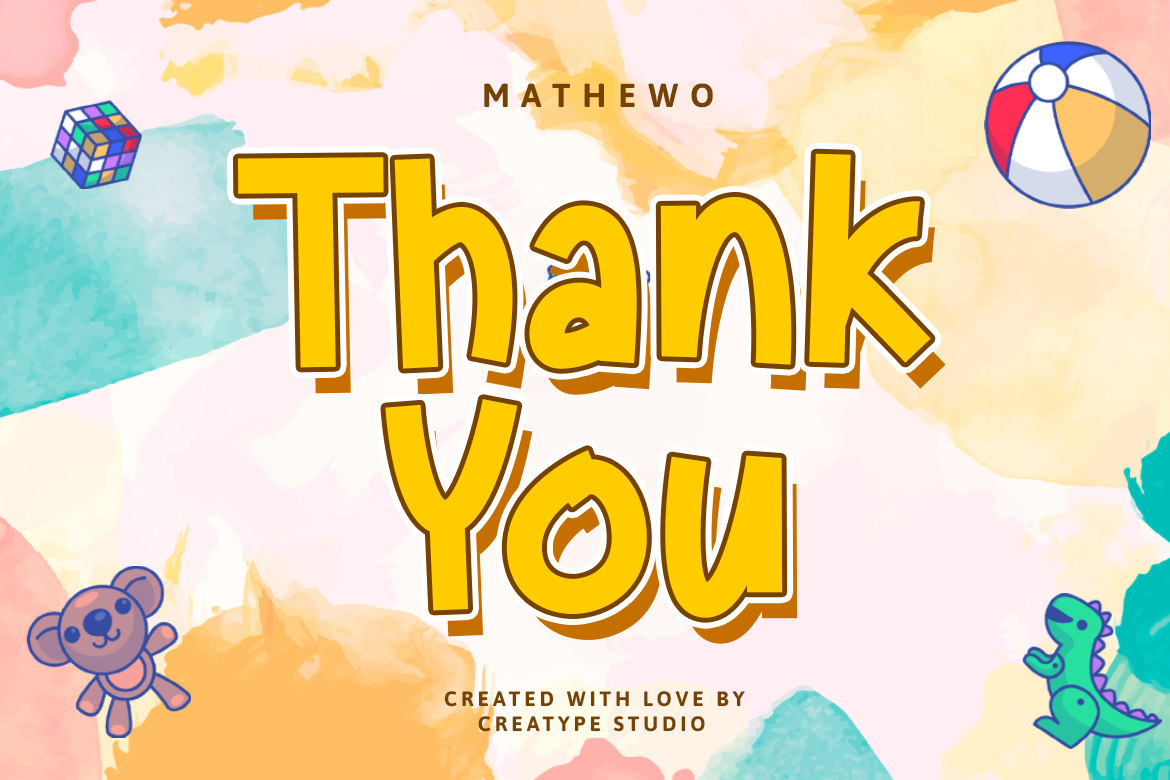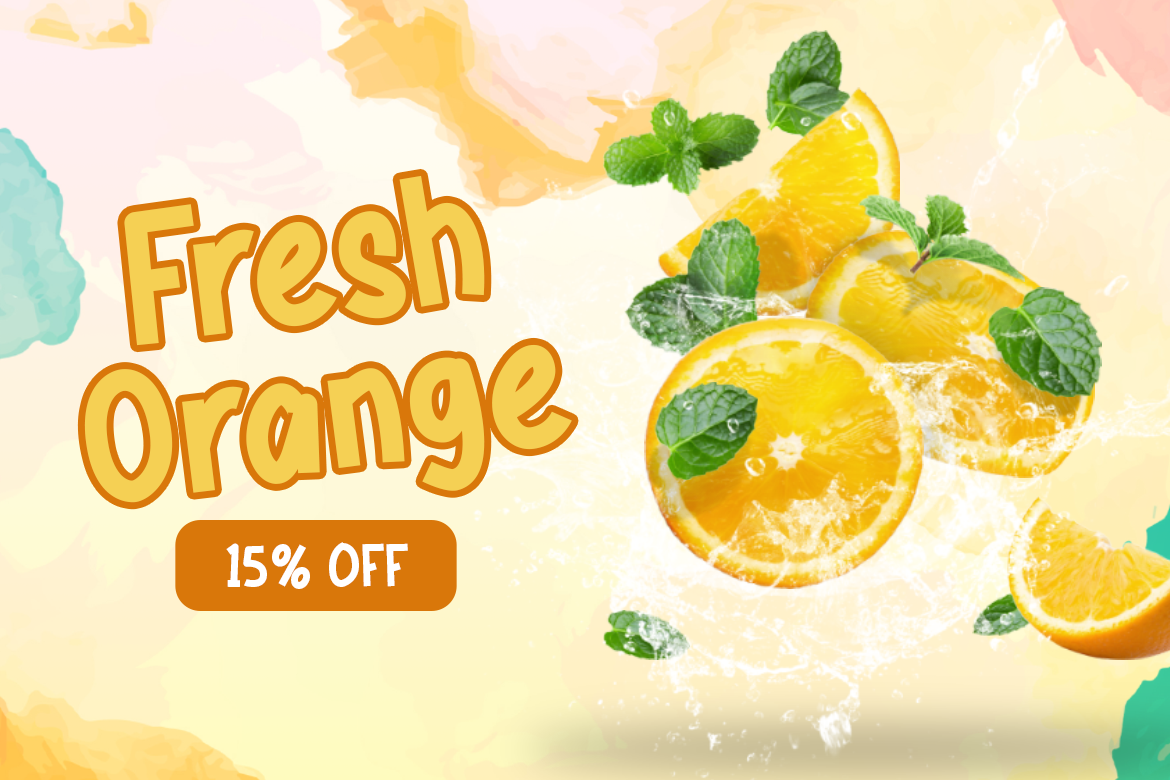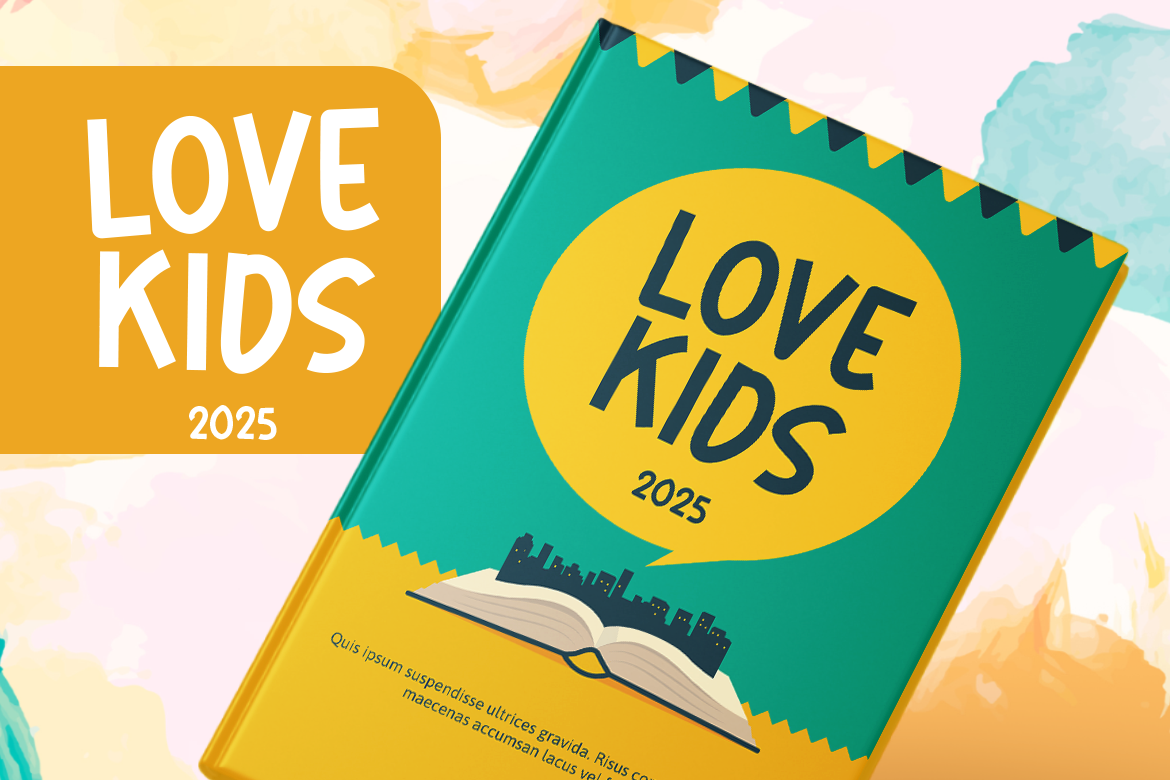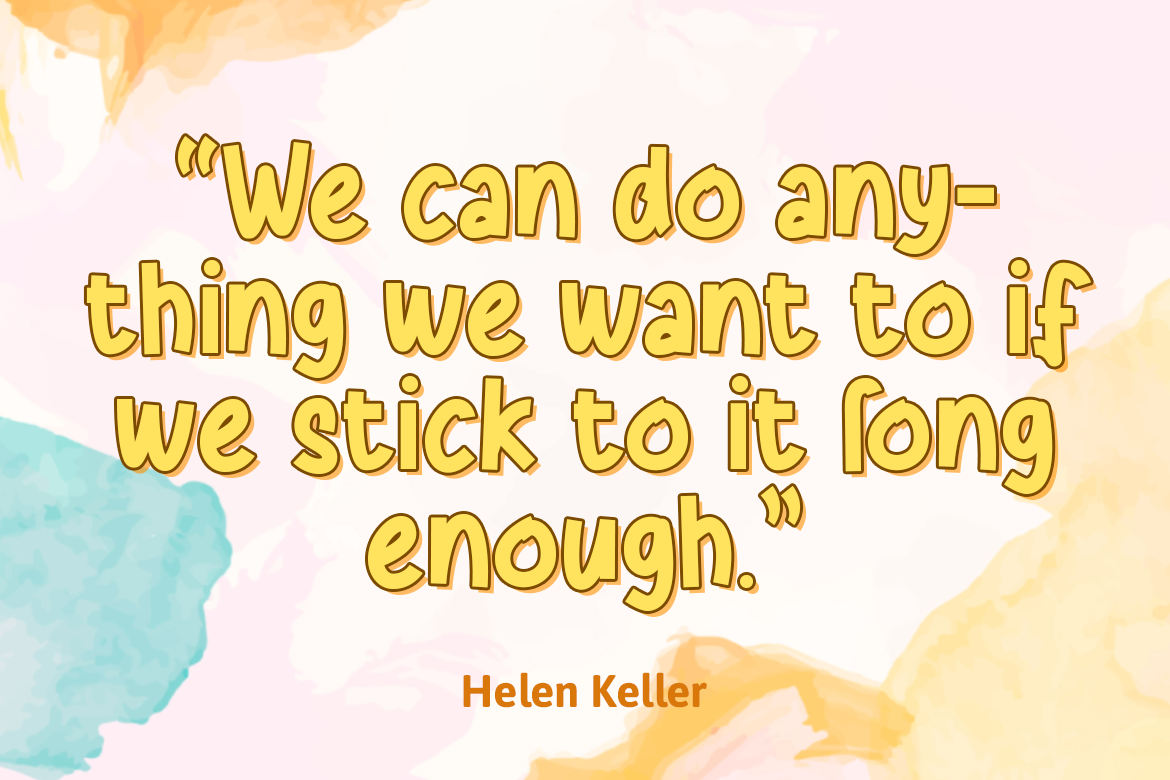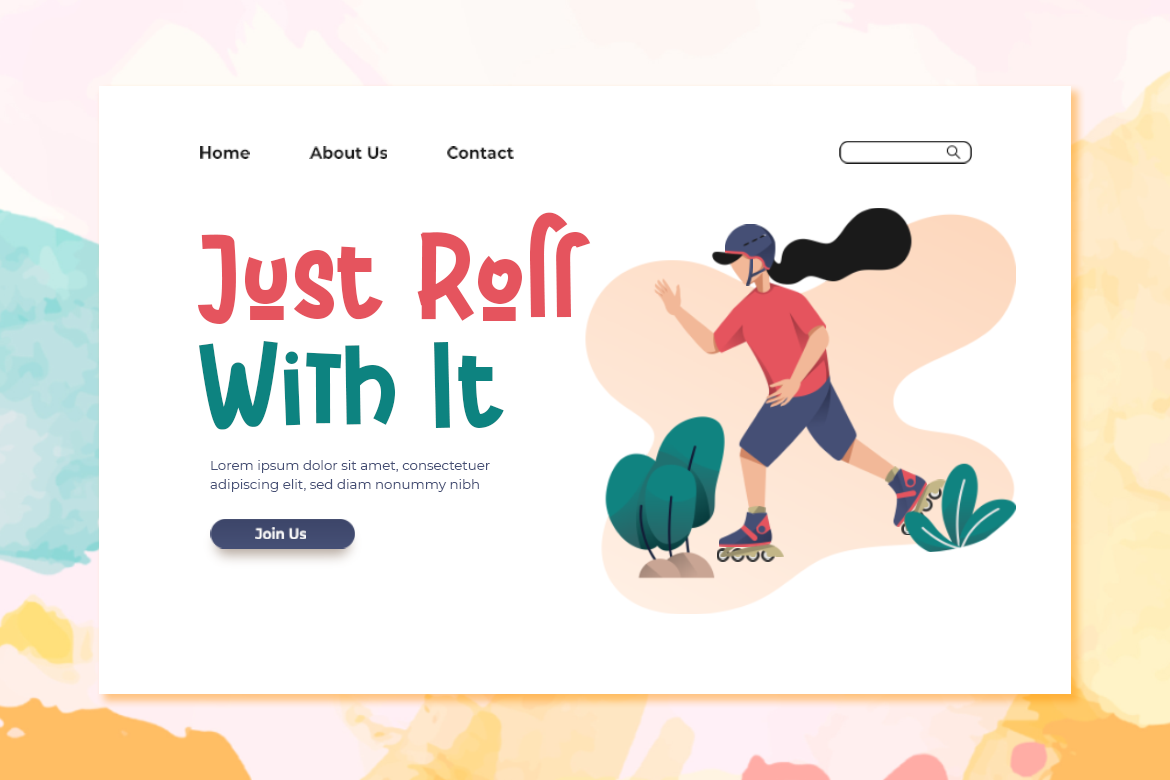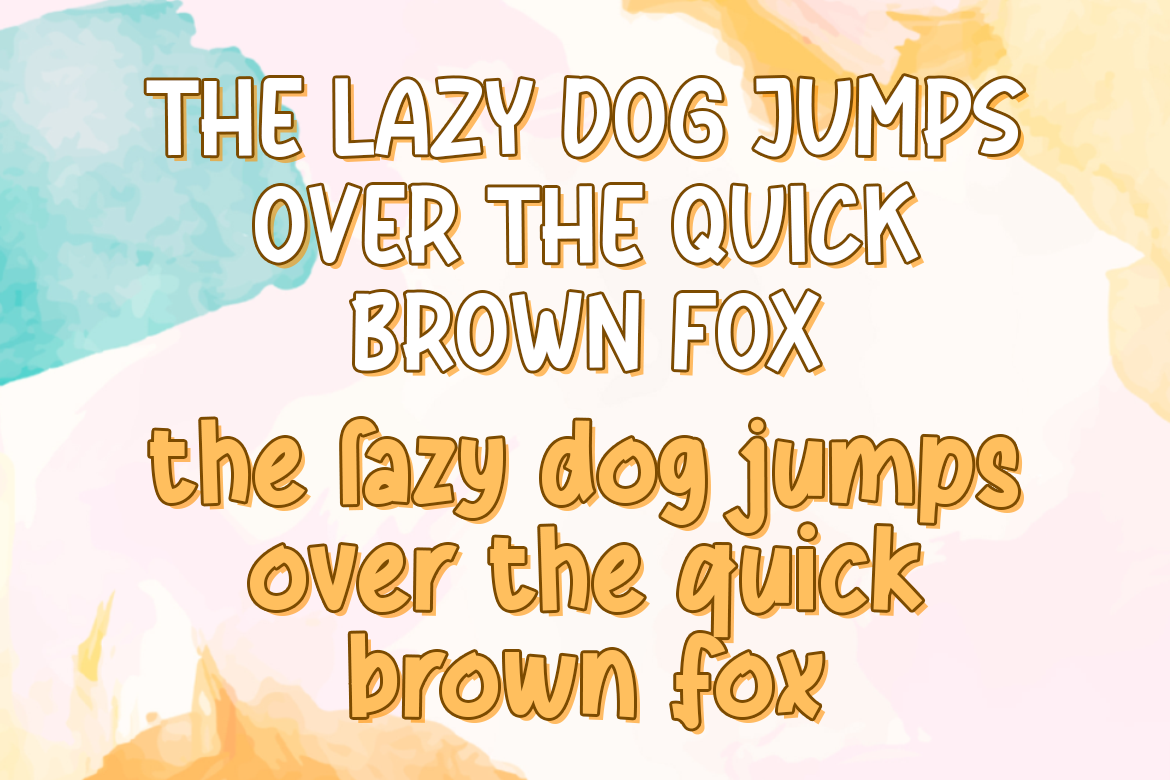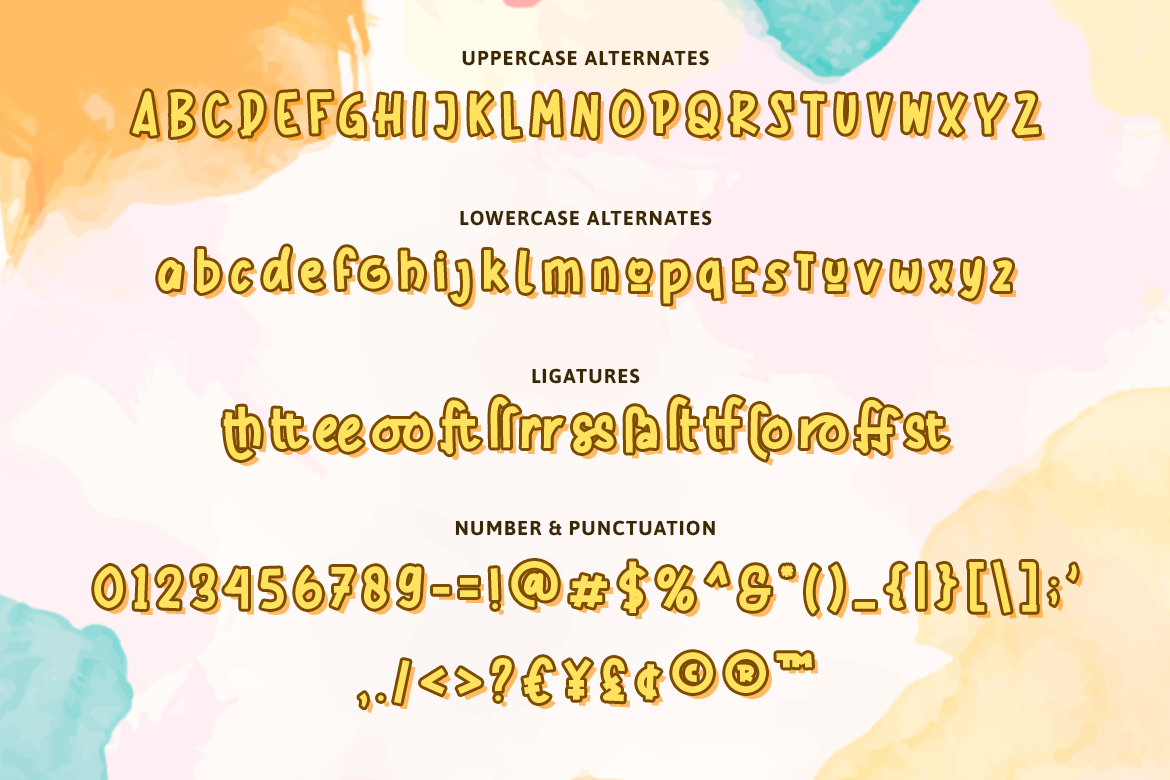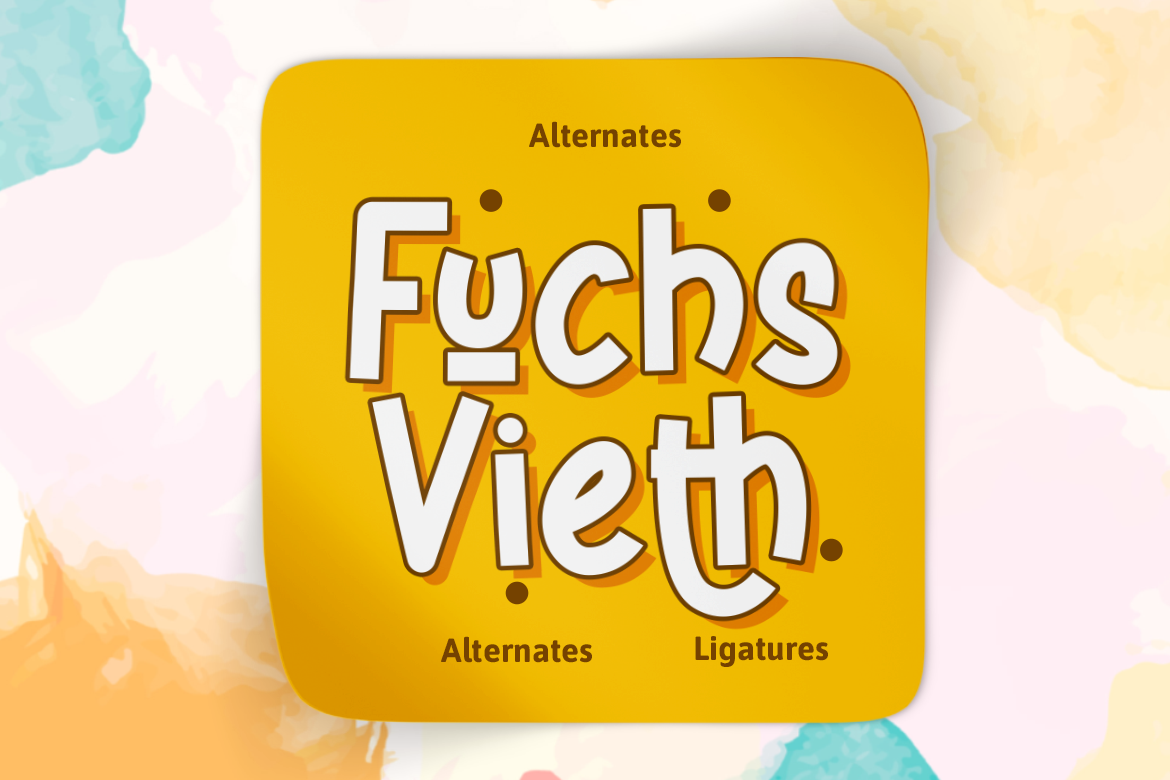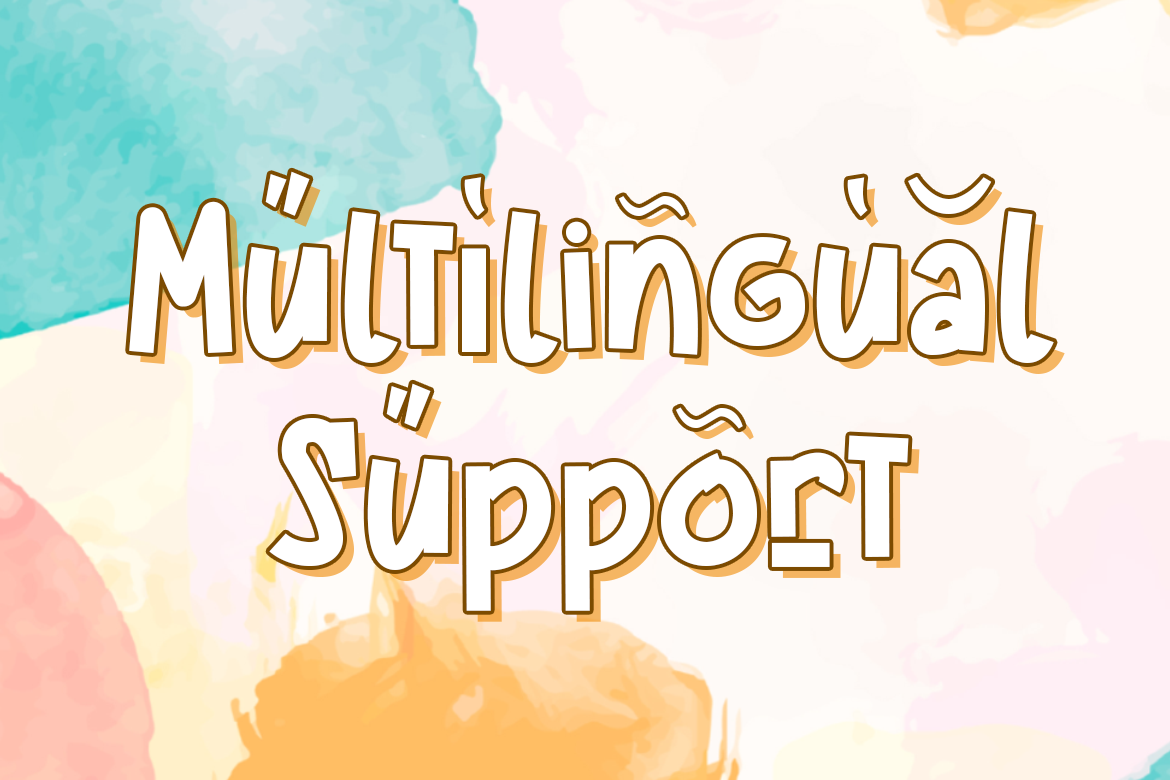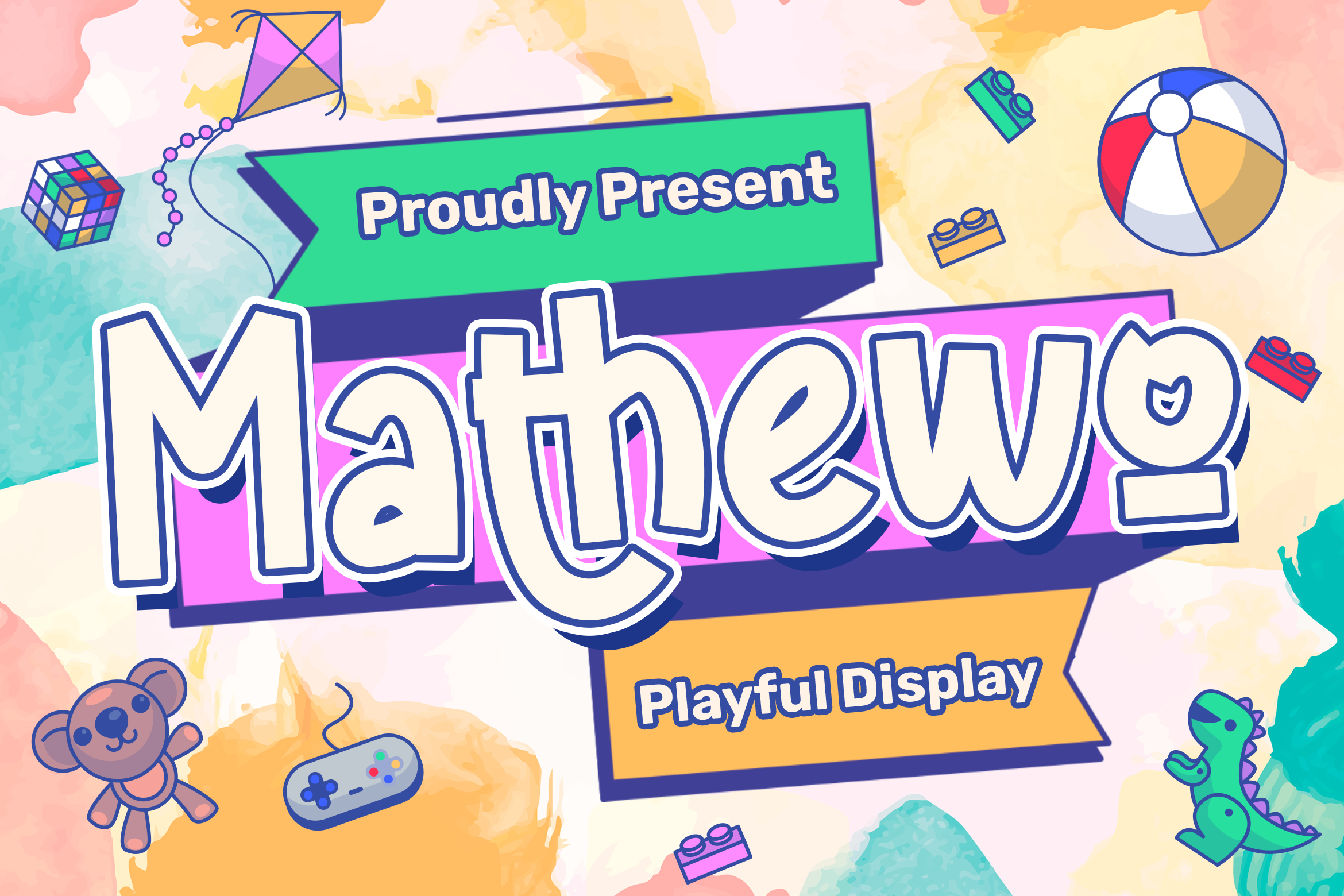
Bring out the playful side of you to your projects with Mathewo. Mathewo is a fun typeface that gives your projects a creative and playful vibe.
Mathewo is perfect for branding projects, logo, wedding designs, social media posts, advertisements, product packaging, product designs, label, photography, watermark, invitation, stationery and any projects that need handwriting taste.
• Ton of glyphs
• Ligature & Alternate
Mathewo Playful Display